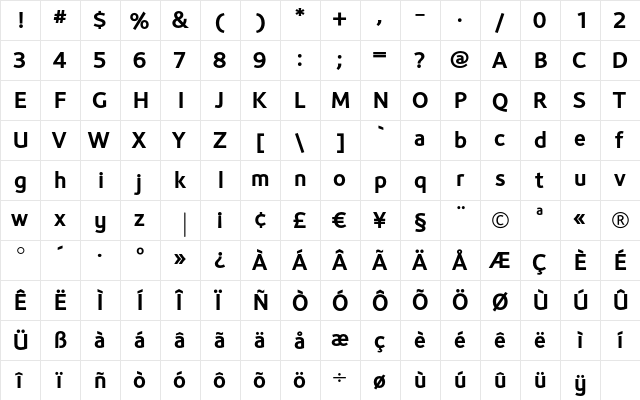
Metrolis Negro
Design Context for Metrolis Typeface
Metrolis offers clean, dependable letterforms without strong stylistic allegiance, making it a practical choice for designers who need flexibility.